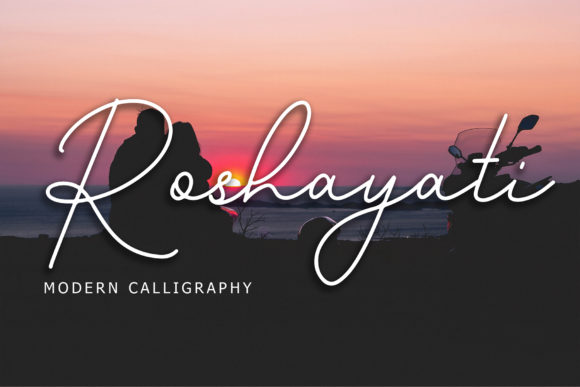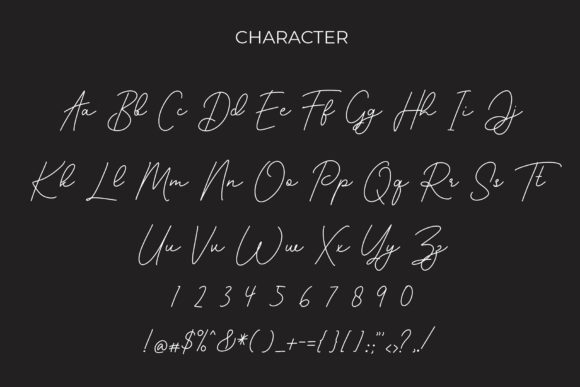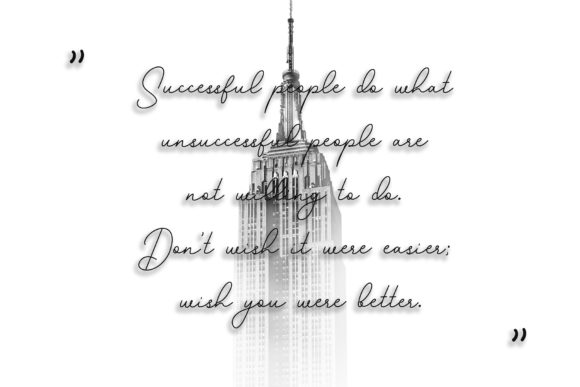
Roshayati Font
About Roshayati Font
Roshayati is a beautiful flowing handwritten font with a stylish appeal. Use it for any crafting project that requires a personalized appearance!